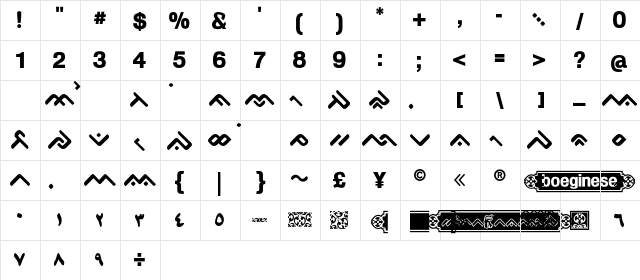
OgieCappo Campotype Regular
| Foundry | andi aw. masry |
| Designer | andi aw. masry |
Design Context for OgieCappo Campotype Typeface
OgieCappo Campotype offers clean, dependable letterforms without strong stylistic allegiance, making it a practical choice for designers who need flexibility.
Pro Tip: Pair OgieCappo Campotype with a font of contrasting weight or personality to build a more expressive typographic hierarchy.